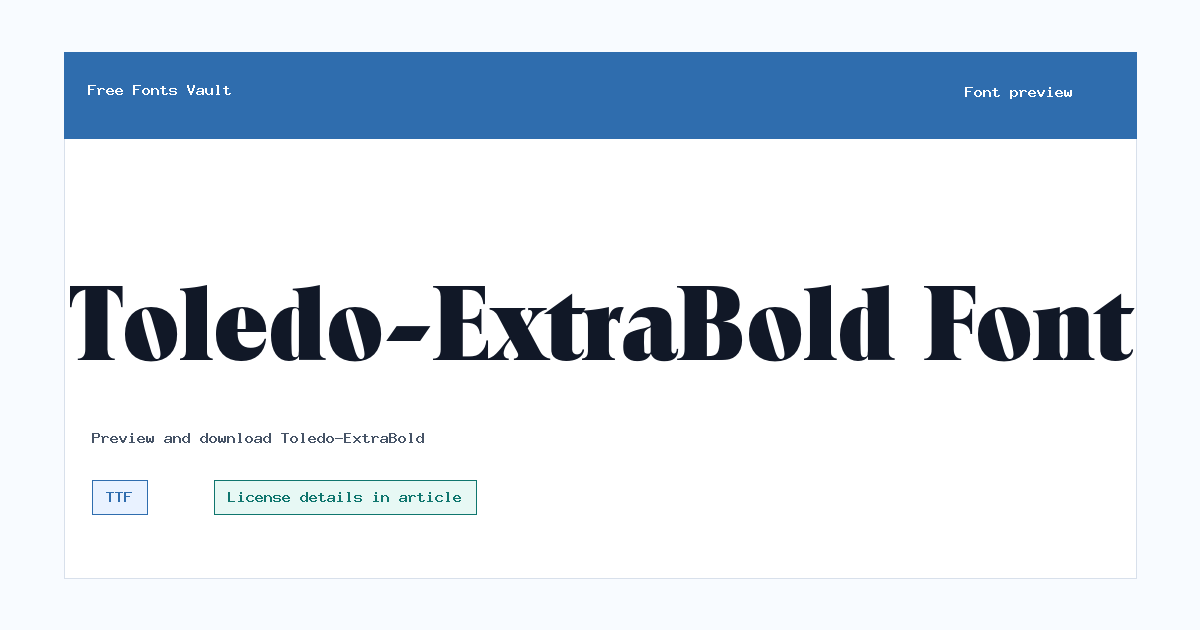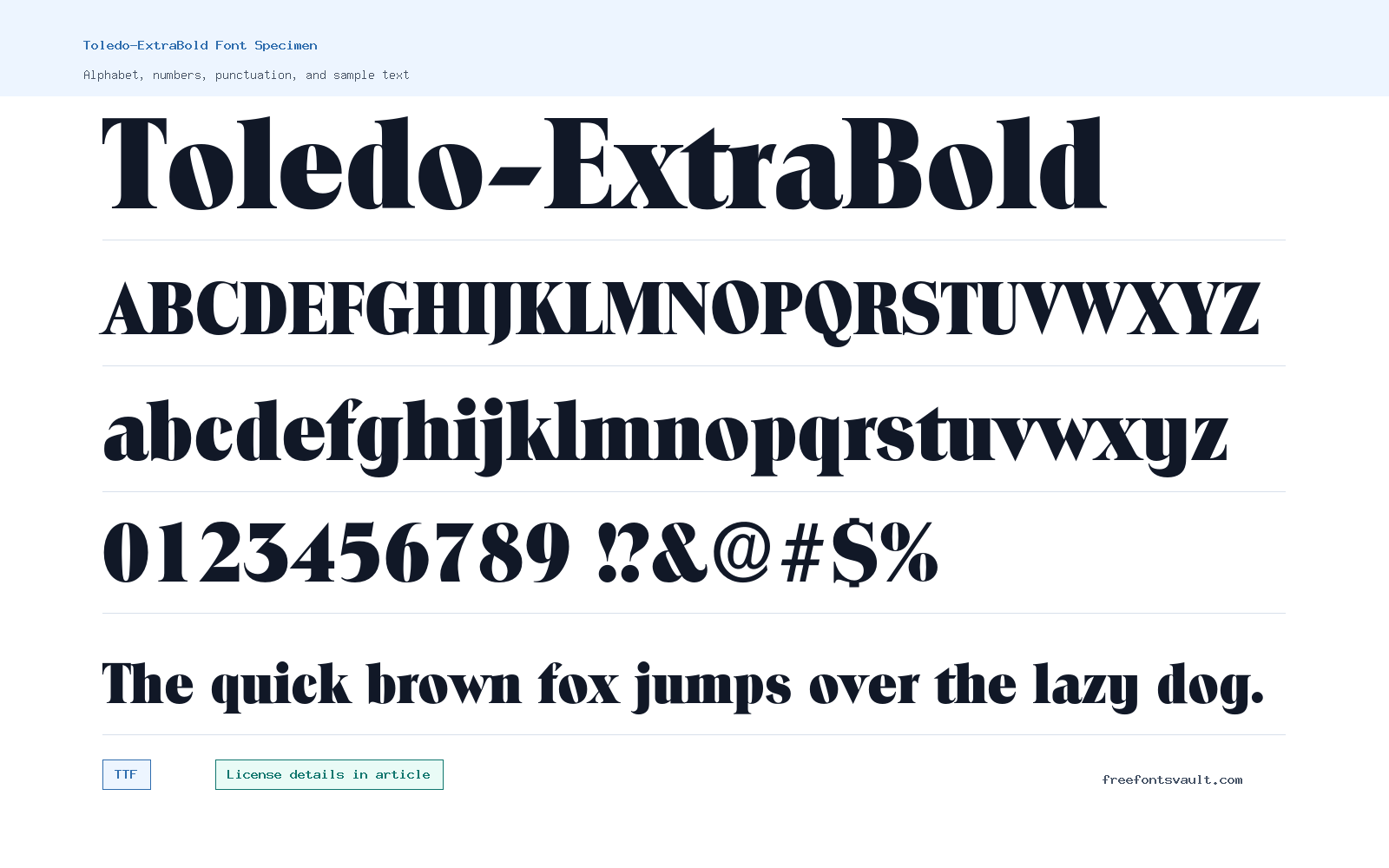
Toledo-ExtraBold
Toledo-ExtraBold font.
Toledo-ExtraBold is a strong display font for designers who need heavy letterforms for titles, thumbnails, posters, banners, and short statements. It is not a quiet reading face; its value is impact, so test your exact wording in the preview before choosing it for a layout.
About Toledo-ExtraBold Font
Toledo-ExtraBold comes as a TrueType font with a bold 700 weight. That makes it a practical pick for large words that need to be noticed quickly. Try it in short headlines, section names, sale graphics, YouTube thumbnails, event posters, and bold label-style treatments where a single phrase carries the design.
Because only one regular-style variant is listed, treat Toledo-ExtraBold as a focused display option rather than a complete multi-weight family. If a project needs long paragraphs, captions, or small interface copy, pair this font with a calmer text face and reserve Toledo-ExtraBold for the words that need emphasis.
The preview is useful for checking more than the font name. Type your own brand name, product title, numbers, punctuation, and mixed-case words. Heavy fonts can look excellent at large sizes but may crowd together when tracking is tight, so test line breaks and spacing before downloading.
- Bold 700 weight built for short, high-impact display text
- Useful for uppercase headlines, numbers, labels, and title graphics
- Best tested at large sizes where heavy shapes stay readable
- YouTube thumbnails and social media headlines
- Bold labels, badges, and section headers
- Short promotional banners and display ads
- Branding mockups that need a strong headline voice
Use Toledo-ExtraBold sparingly and give the letters room. Start with headline sizes, add a little tracking if words feel tight, and avoid long all-caps paragraphs. For cleaner page hierarchy, combine it with a neutral sans or serif for supporting copy.
What kind of font is Toledo-ExtraBold?
Toledo-ExtraBold is a bold TrueType display font. It is best tested in headlines, titles, posters, labels, and other short text settings.
Does Toledo-ExtraBold include multiple styles?
Is Toledo-ExtraBold good for body text?
It is better for short display text than paragraphs. For body copy, use a more readable companion font and keep Toledo-ExtraBold for emphasis.
Test your real headline, numbers, punctuation, and mixed-case words. Heavy fonts can need extra spacing, especially in tight layouts.